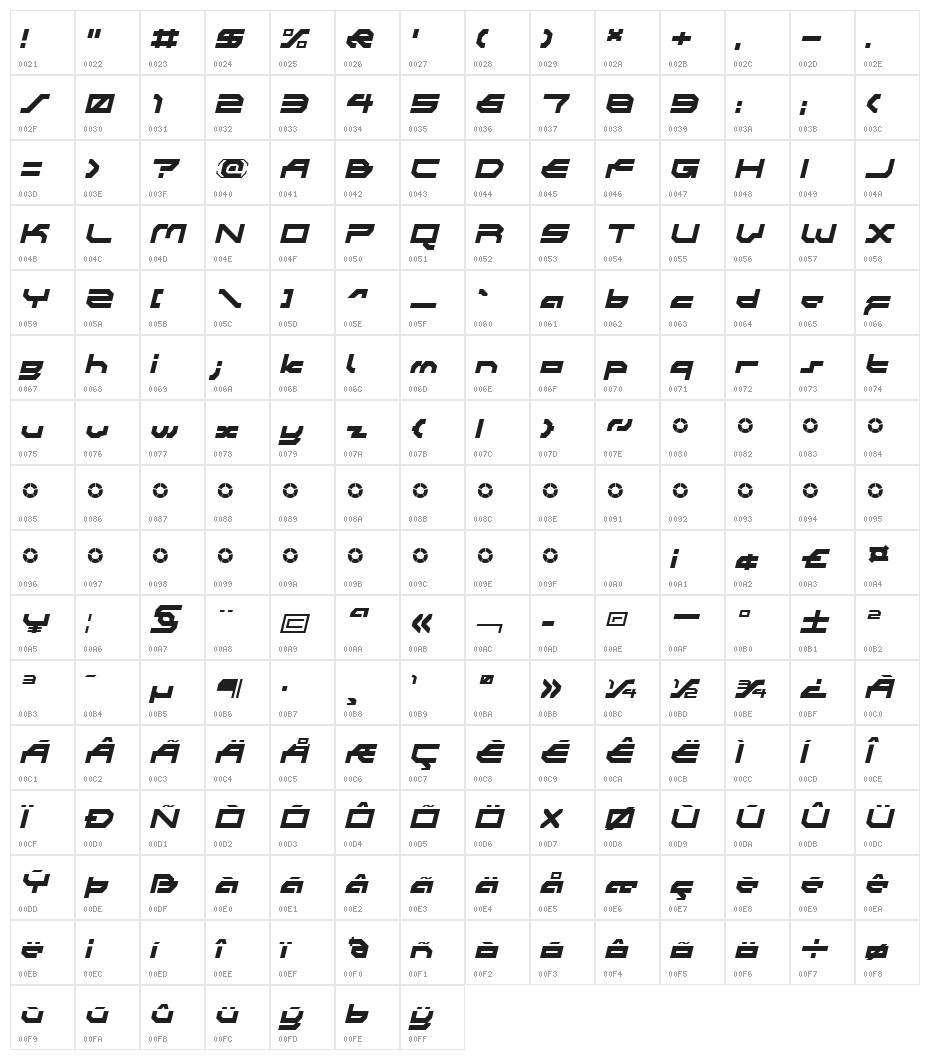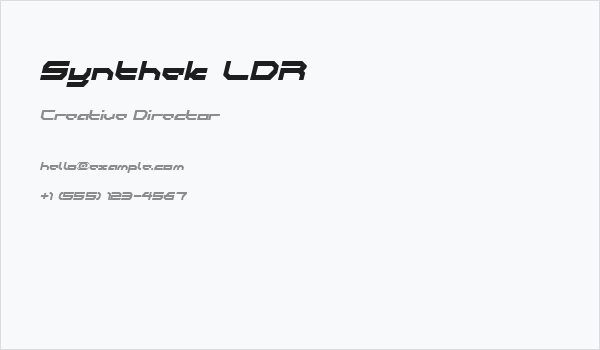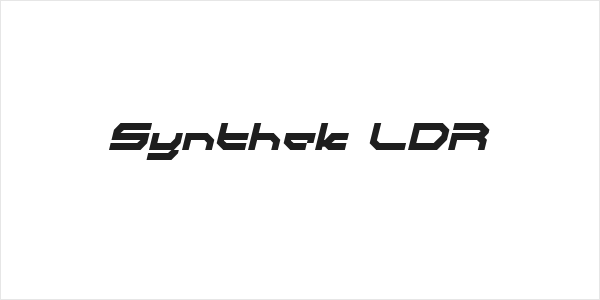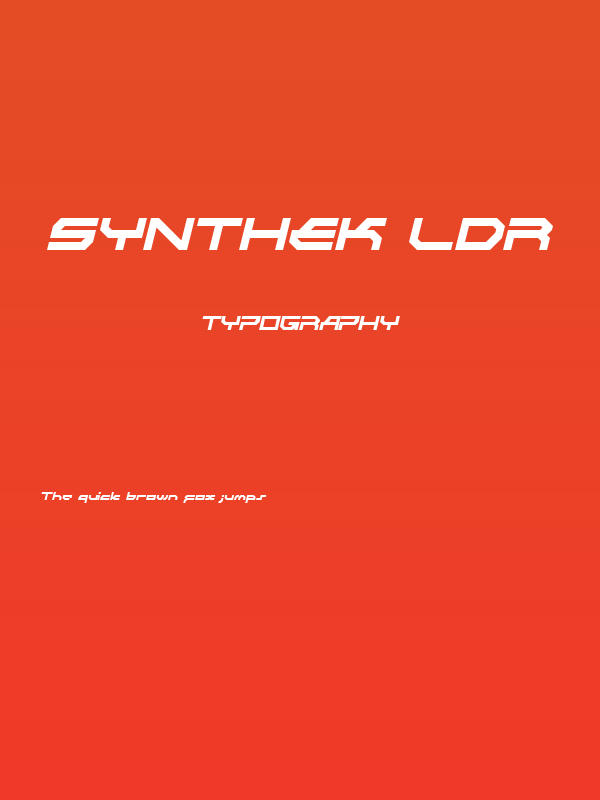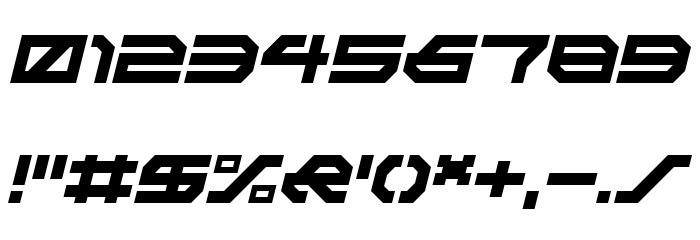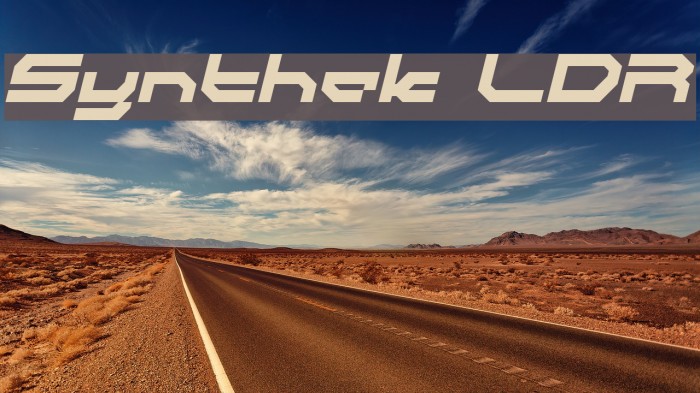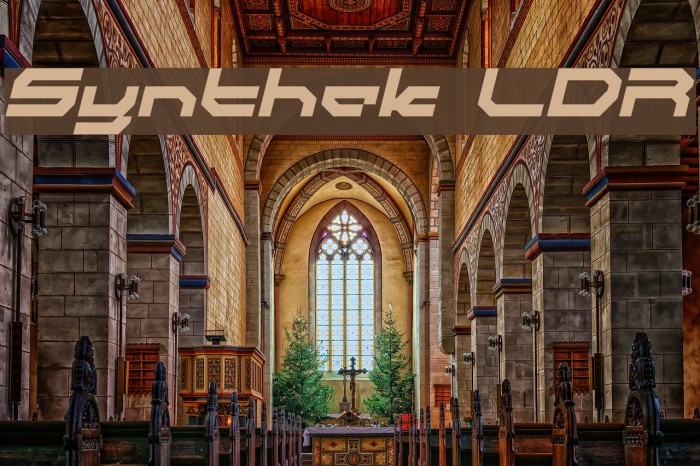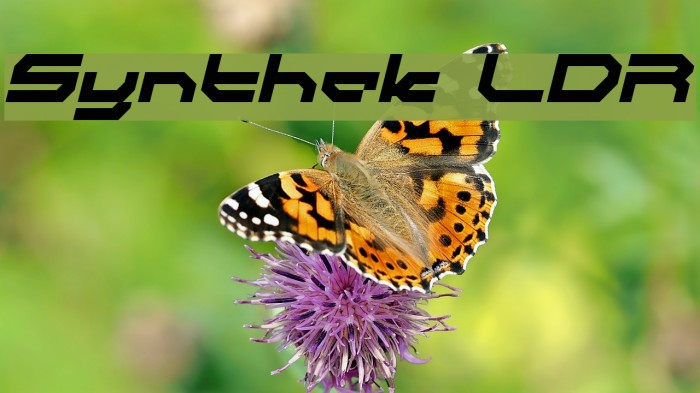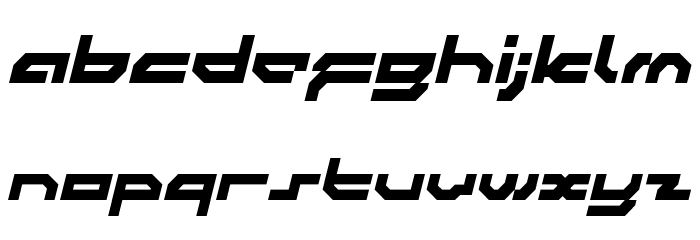
This font exhibits a futuristic and angular design, characterized by its sharp edges and geometric shapes. The letters are constructed with a consistent slant, giving a sense of motion and speed. The uppercase and lowercase letters maintain a uniform style, with the lowercase being slightly more compact. Numbers and special characters follow the same angular theme, ensuring a cohesive look across all glyphs. The font's boldness and unique style make it stand out, ideal for projects that require a modern and edgy aesthetic.
| Proposed Projects | Ideal for sci-fi themed designs, video game graphics, technology branding, and modern posters. |